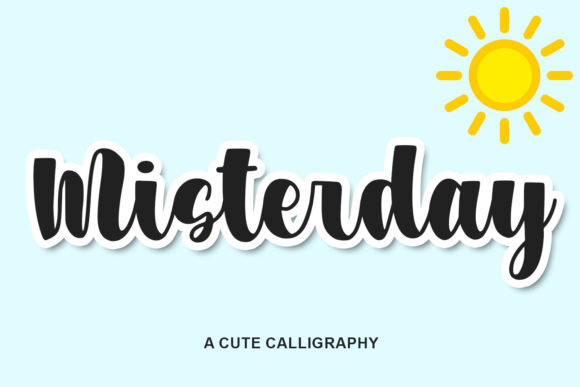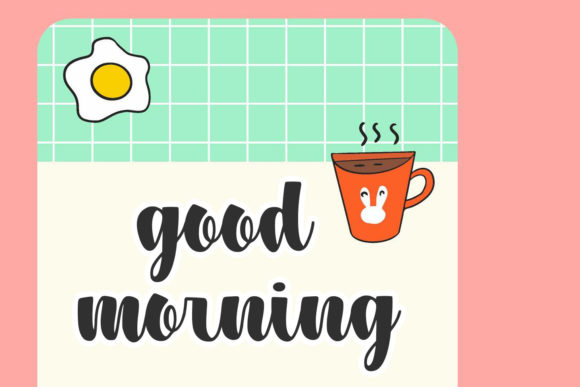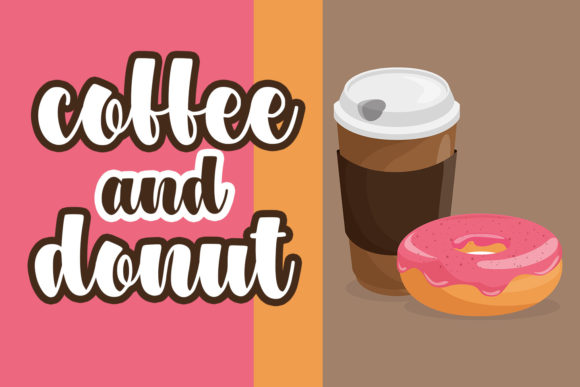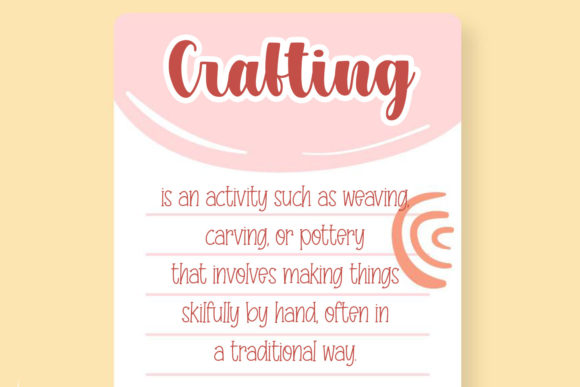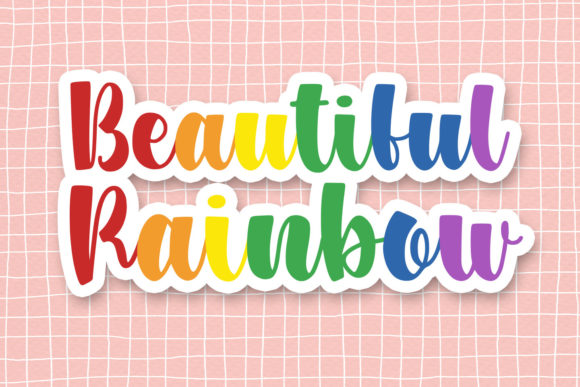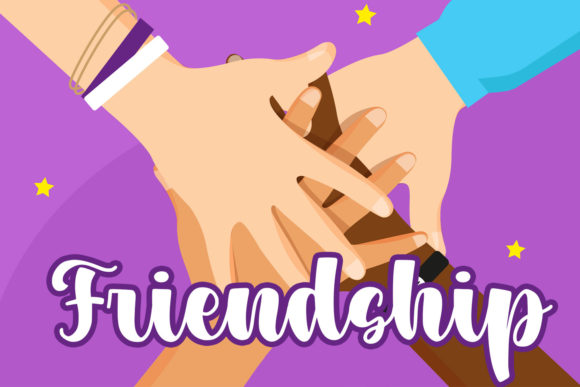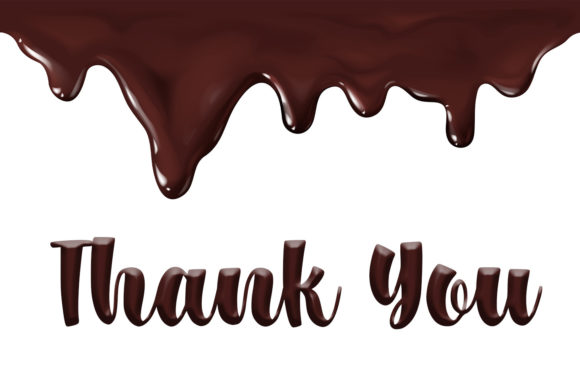
Misterday Font
About Misterday Font
Misterday is a stylish and sophisticated handwritten font that exudes a trendy and chic vibe. Its modern and versatile design makes it a perfect choice for a wide range of creative projects. From eye-catching title notes to fashionable t-shirt designs, from inspiring quotes to elegant mugs, from charming tote bag designs to heartfelt cards, and from captivating banners to engaging social media posts, Misterday has the ability to add a touch of elegance and flair to any craft project you have in mind.
The font’s distinct and well-crafted characters make it stand out, allowing you to create designs that leave a lasting impression. Whether you’re aiming for a bold and contemporary look or a subtle and refined aesthetic, Misterday offers the flexibility to adapt to your creative vision. Its clean lines and stylish strokes make it a versatile choice that can effortlessly enhance the visual appeal of your designs.
With Misterday at your disposal, you can effortlessly infuse your projects with a sense of sophistication and modernity. Its chic and trendy appearance ensures that your designs will catch the eye and resonate with your audience. So go ahead and explore the endless possibilities that Misterday brings to your creative endeavors – the result is sure to be nothing short of impressive!